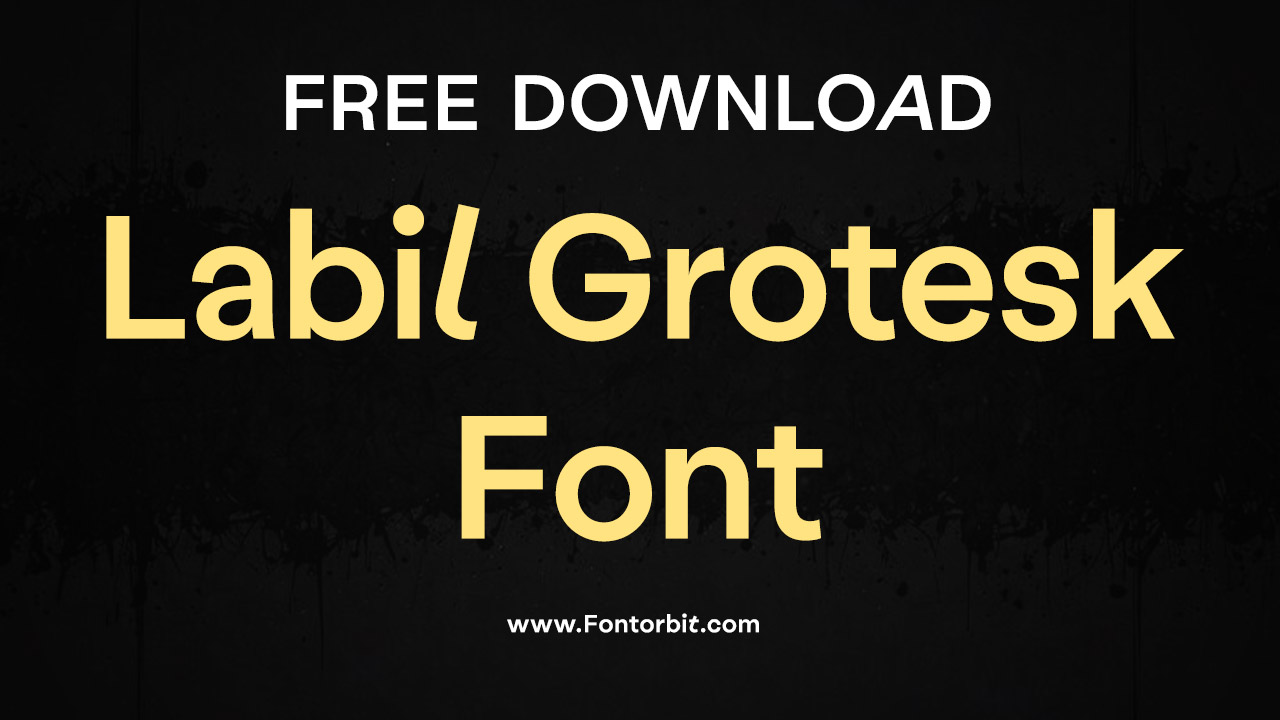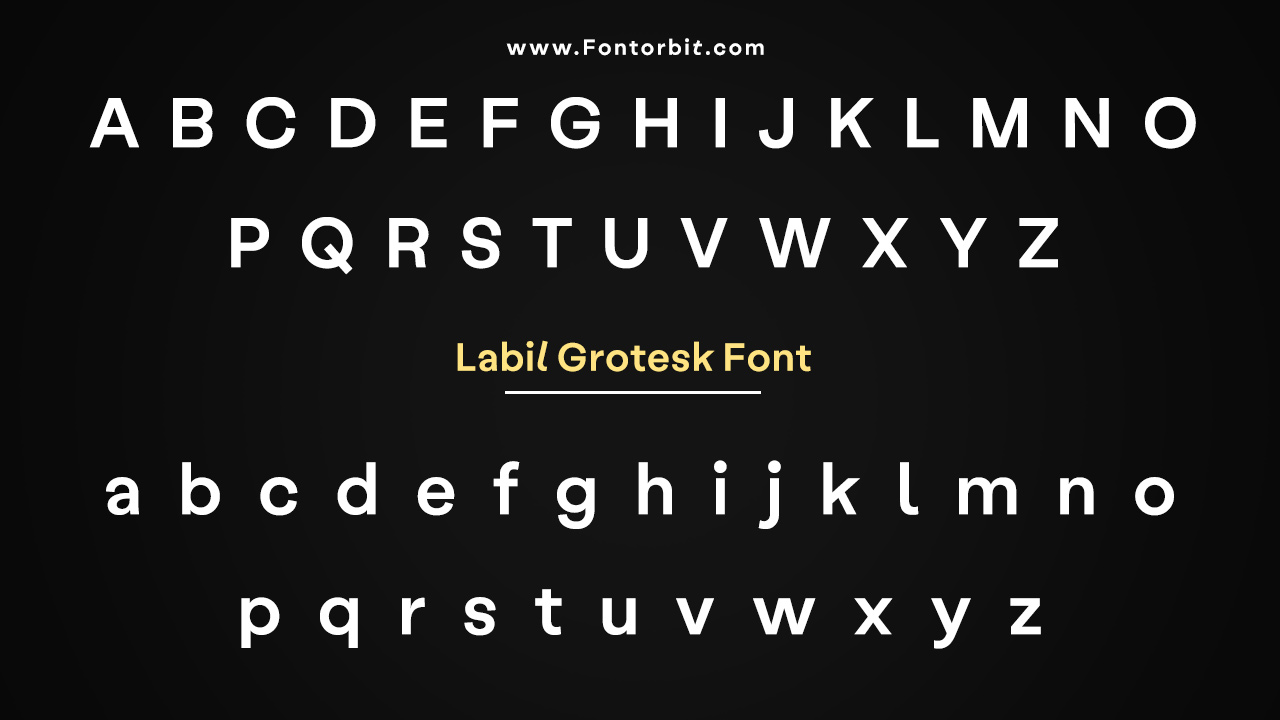
Labil Grotesk is a versatile typeface designed by Christian Jansky, offering a playful balance between a clean, orderly appearance and a quirky, comical twist.
Released in 2022, this font family spans 16 styles, including both upright and italic variants. The Labil Grotesk is a comprehensive font family offering various weights and styles provided by Kometa Typface Foundries.
Labil Grotesk works well in both print and digital environments, making it a flexible choice for various design needs.
- social media posts
- template designs
- movie posters
- animated series logos
Labil Grotesk offers a blend of professionalism and playfulness. Its comprehensive family of weights and styles makes it suitable for various projects, from branding to digital interfaces. While it’s not free, its unique character and flexibility make it a valuable investment for modern design.
2.What Makes Labil Grotesk Unique?
It’s a balance between a clean and quirky design.
4.Is Labil Grotesk Good For Logos?
Yes, it’s a great choice for distinctive, modern logos.
5.Does Labil Grotesk Support Multiple Languages?
Yes, it supports extended Latin scripts.
6.What Kind Of Projects Is Labil Grotesk Best For?
It’s ideal for branding, UI design, and editorial layouts.